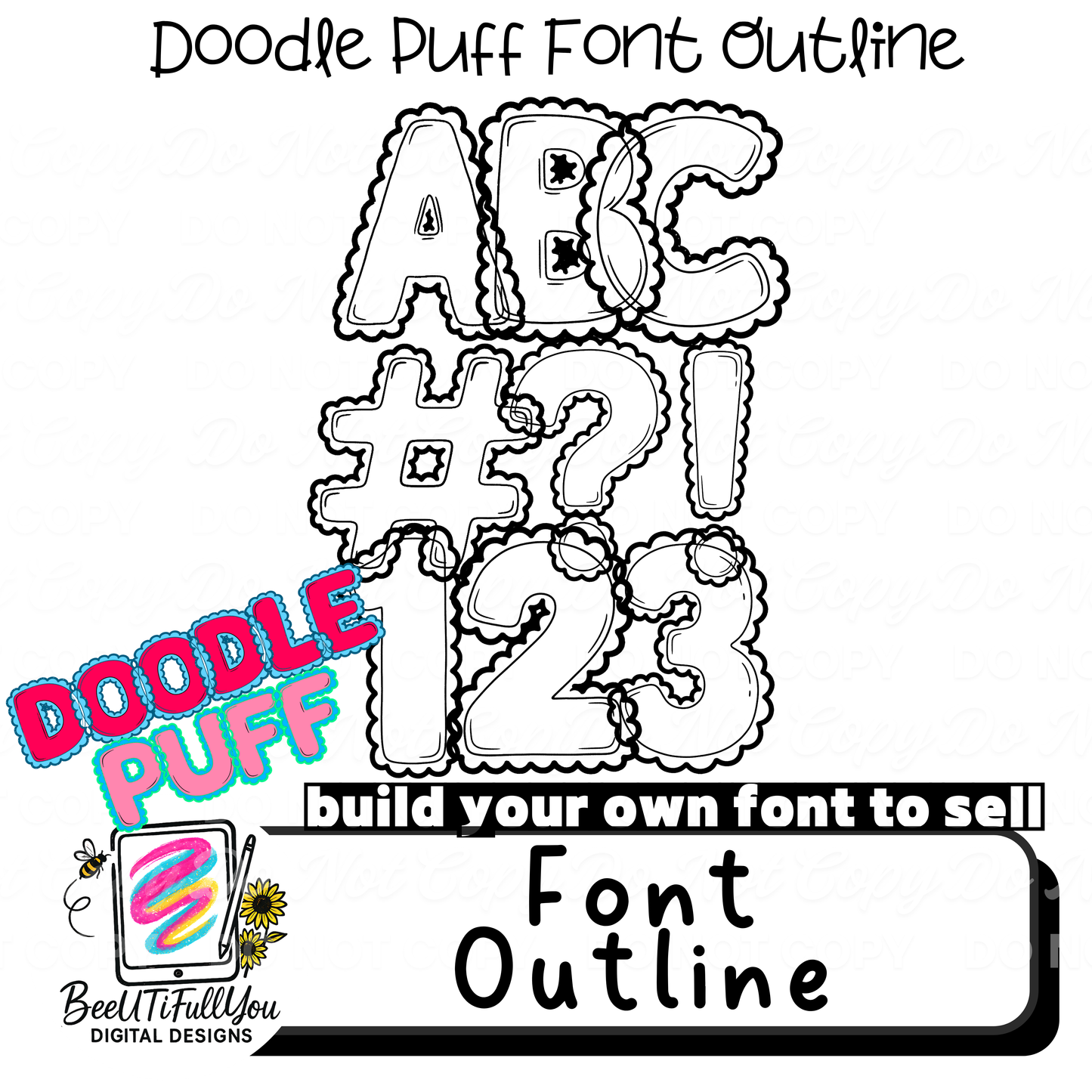
Doodle Puff Font Outline | Build Your Own Font | Bubble Doodle Alphabet | Commercial Use Outline Set
Create your own playful, bubbly font with this Doodle Puff Font Outline set ✏️✨
This hand-drawn, puffy doodle-style outline alphabet is designed for creators who want to build, customize, and sell their own finished fonts or alphabet designs.
This listing provides the OUTLINE BASE ONLY, giving you full creative freedom to color, texture, decorate, and style the font to make it uniquely yours.